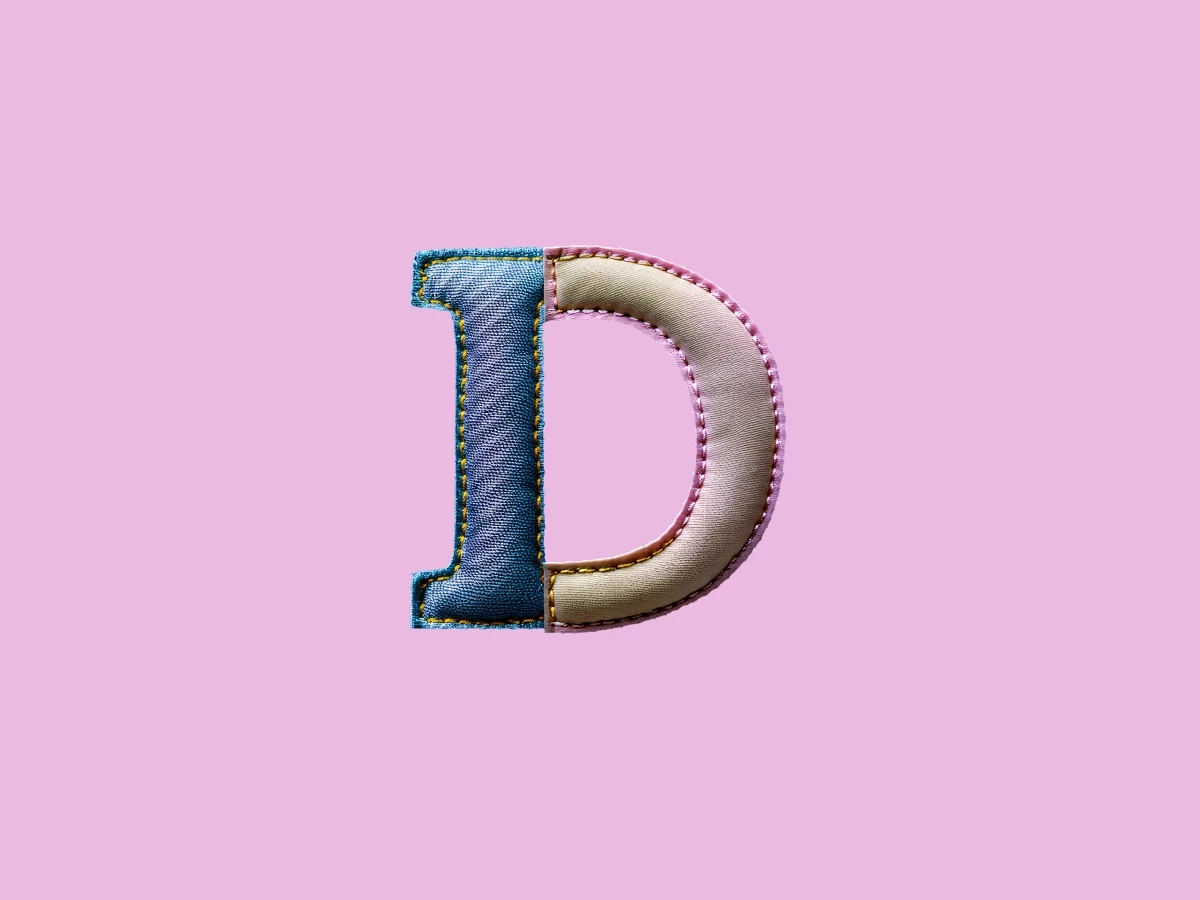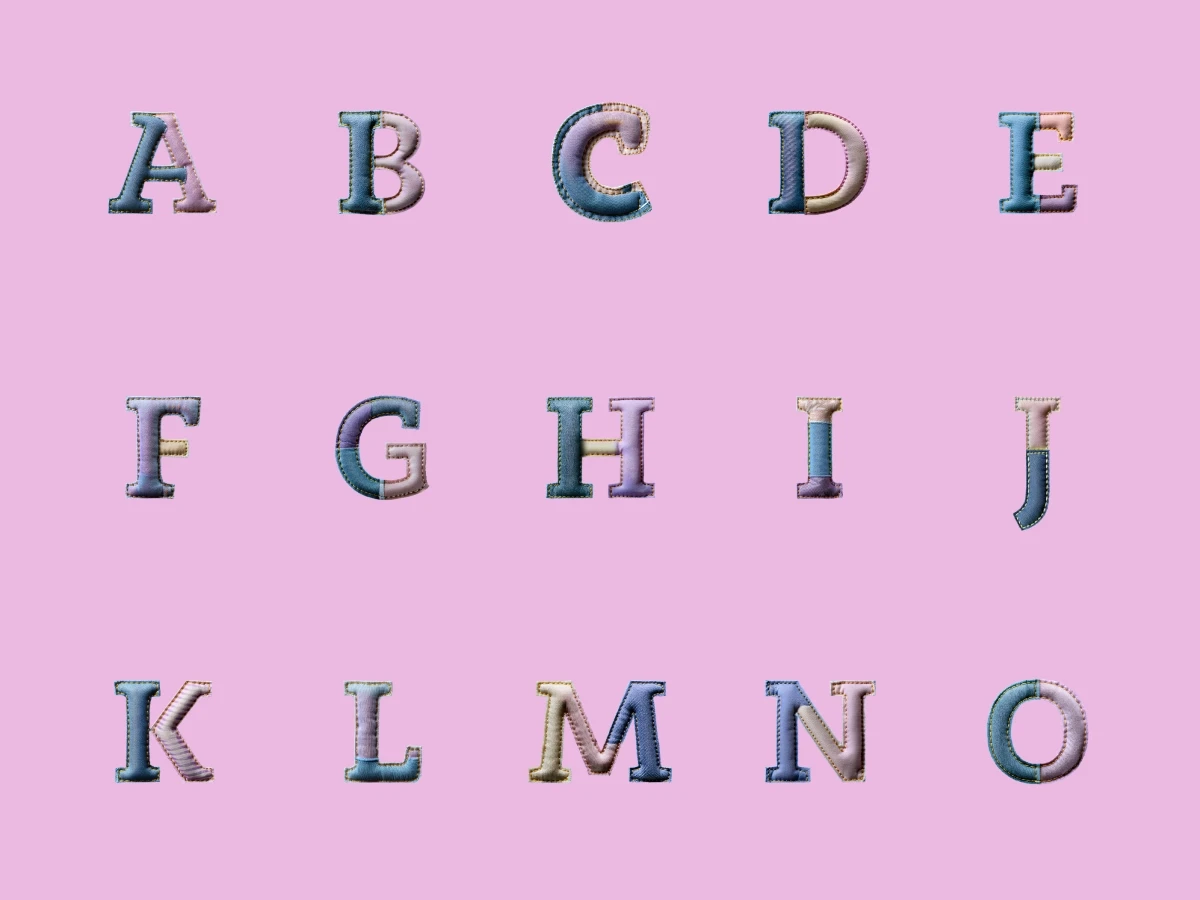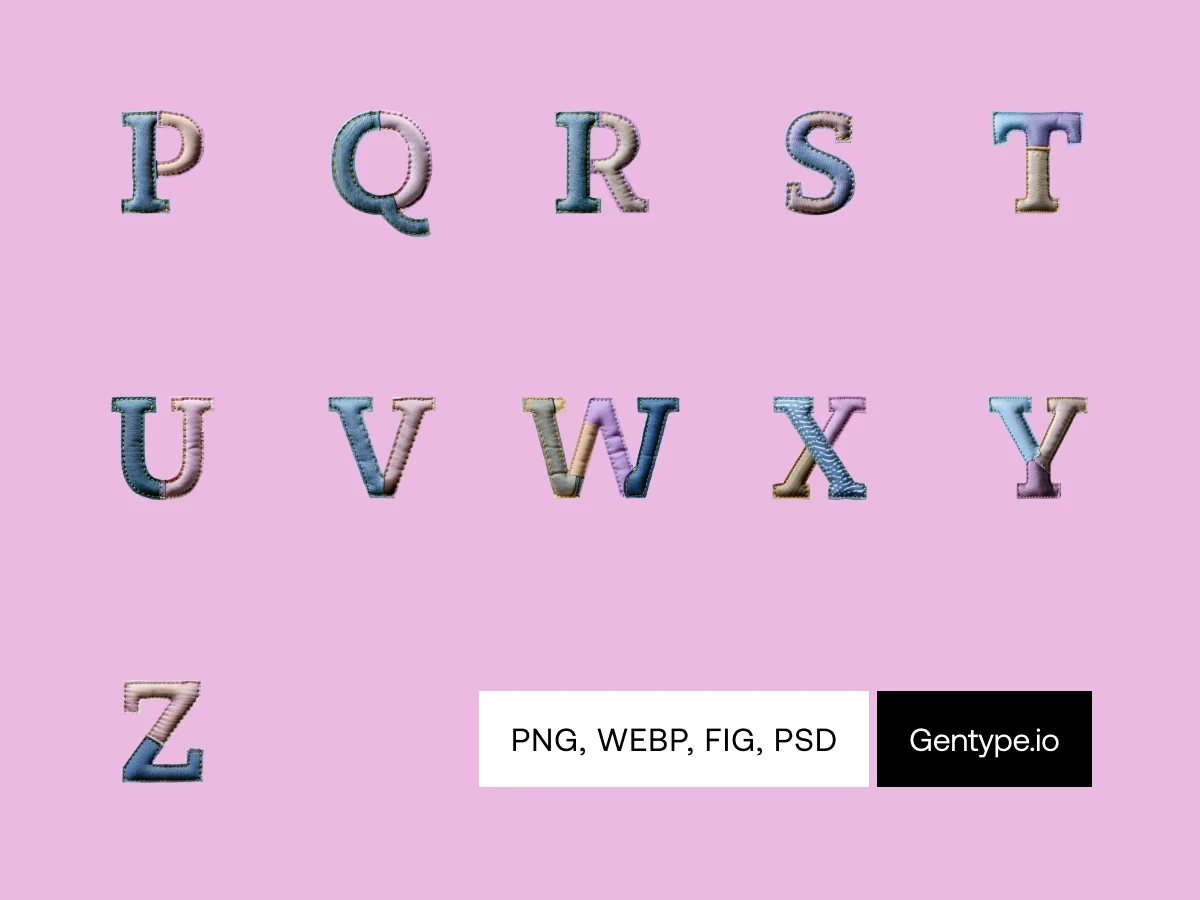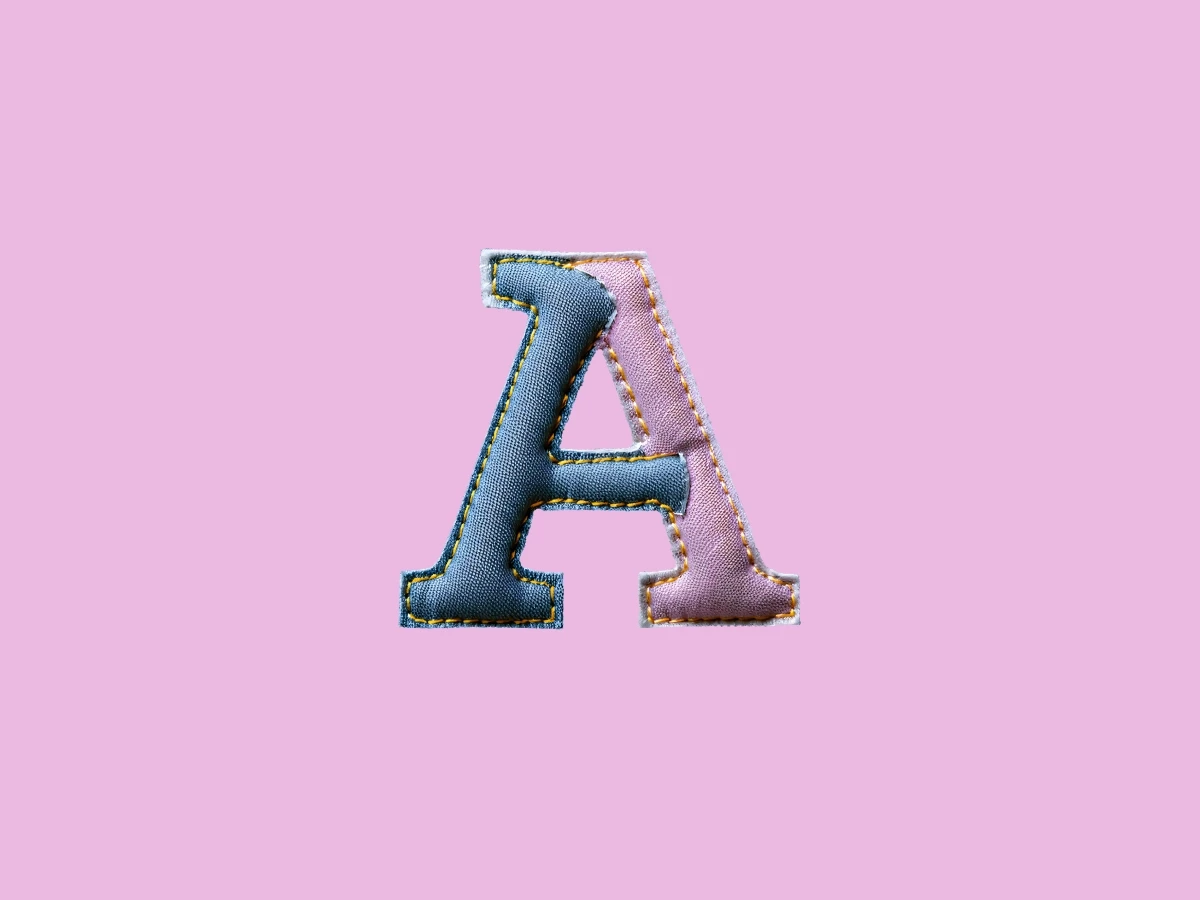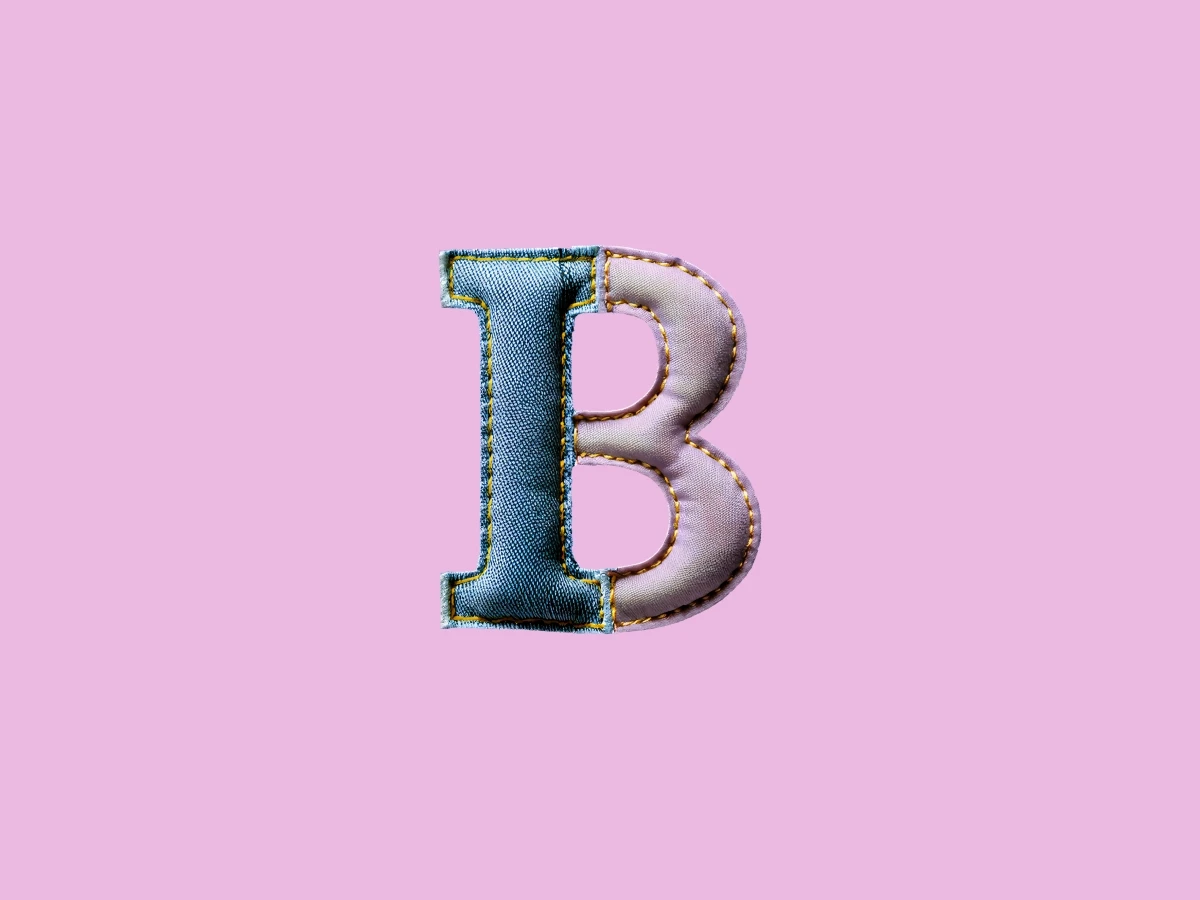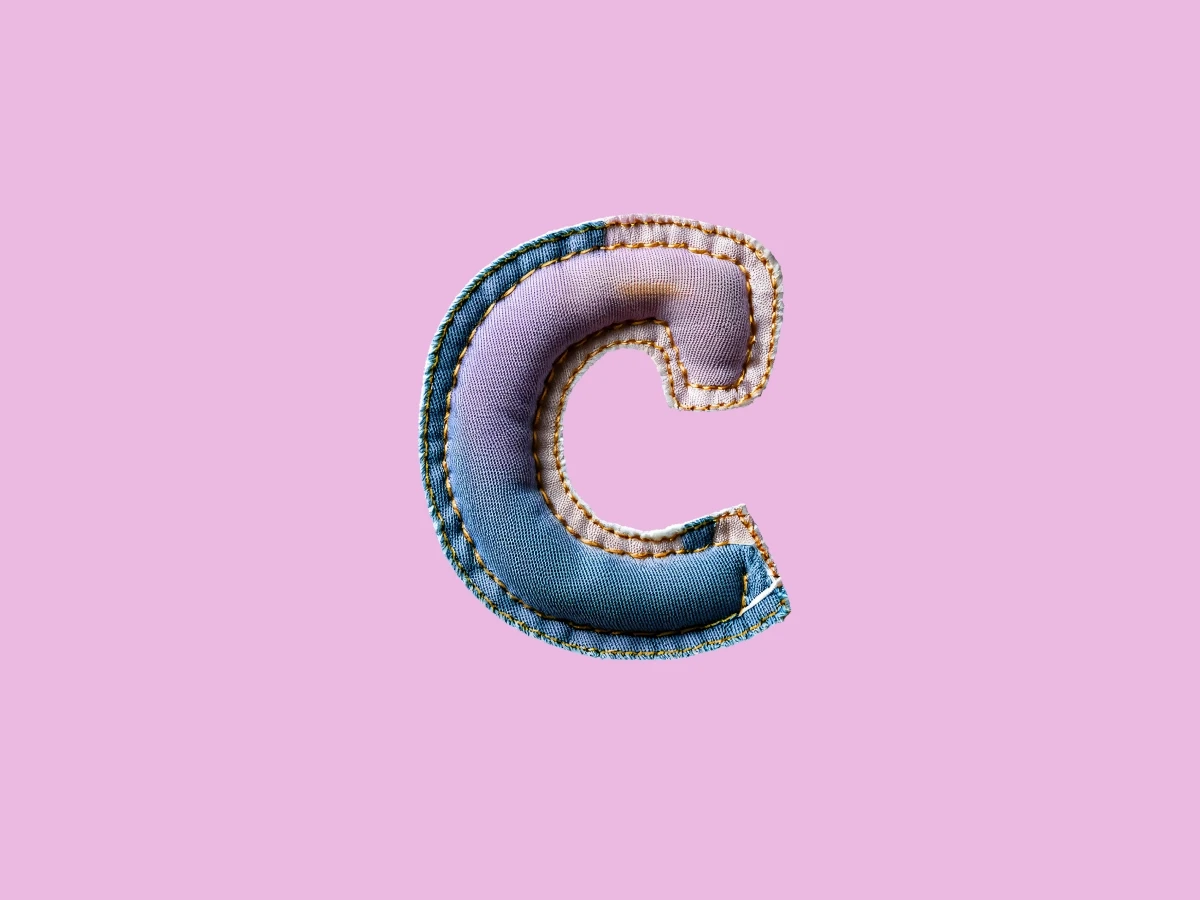
About the theme
If Cozy Sleep is your perfect Sunday morning in bed, then Dreamy Sleep is that pinkish, pastel evening when you almost dozed off on the couch. Just as cushy and comfy, but with a hint of that sweet twilight vibe. It’s like Cozy Sleep got dressed up in its favorite PJs and added a sprinkle of magic. These letters are just as snug, but they’ve got a bit more of that dreamy, lost-in-thought charm. Think of them as Cozy Sleep’s stylish sibling who’s always a little extra.